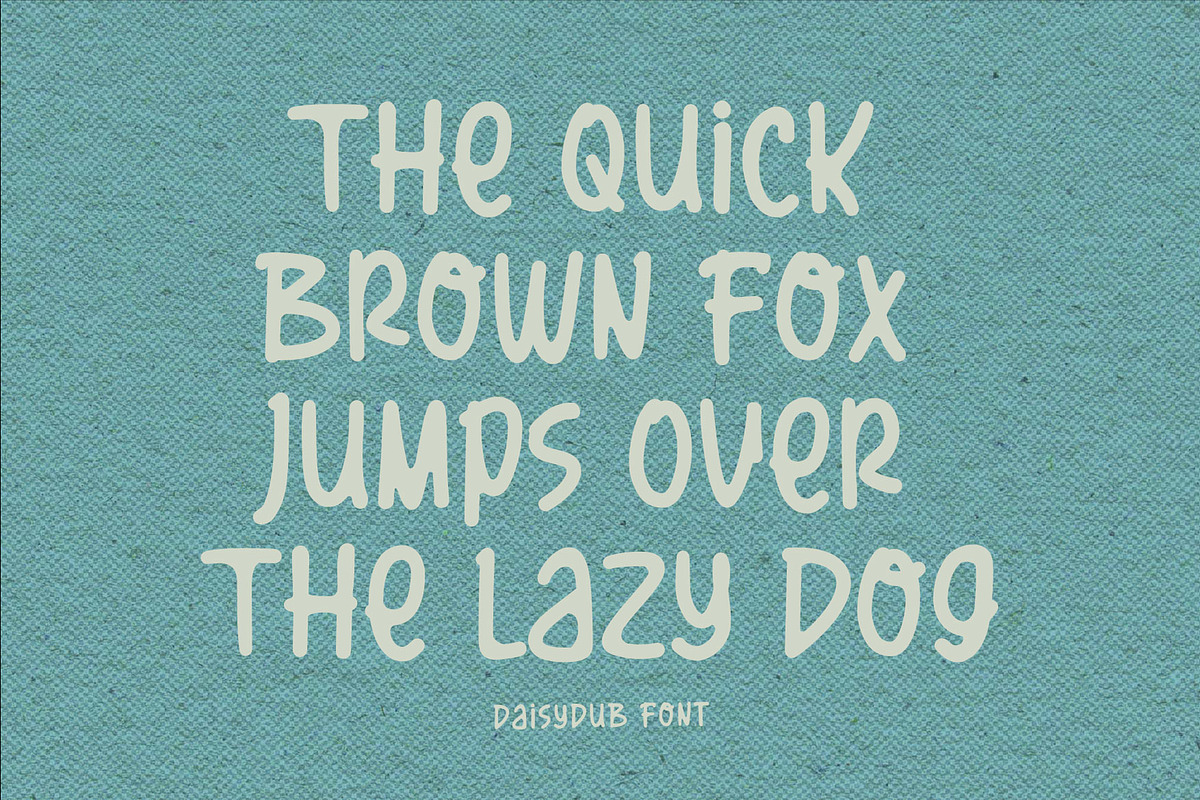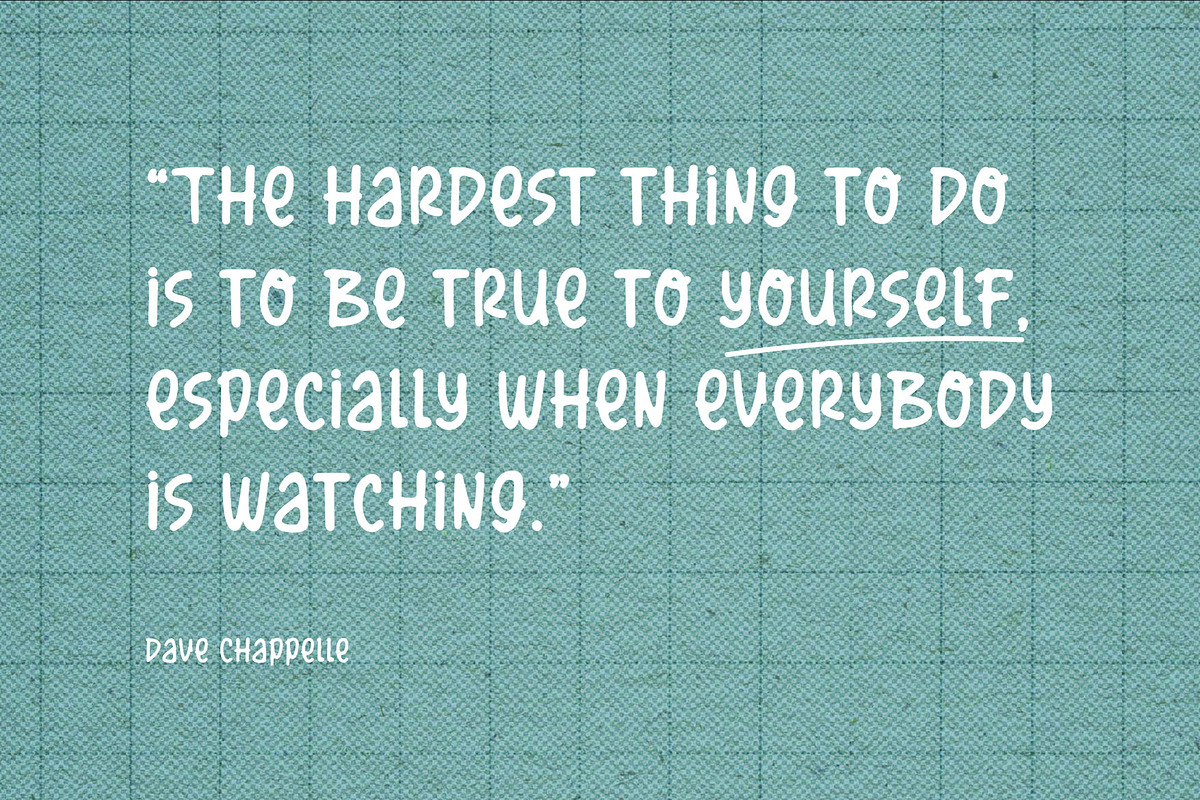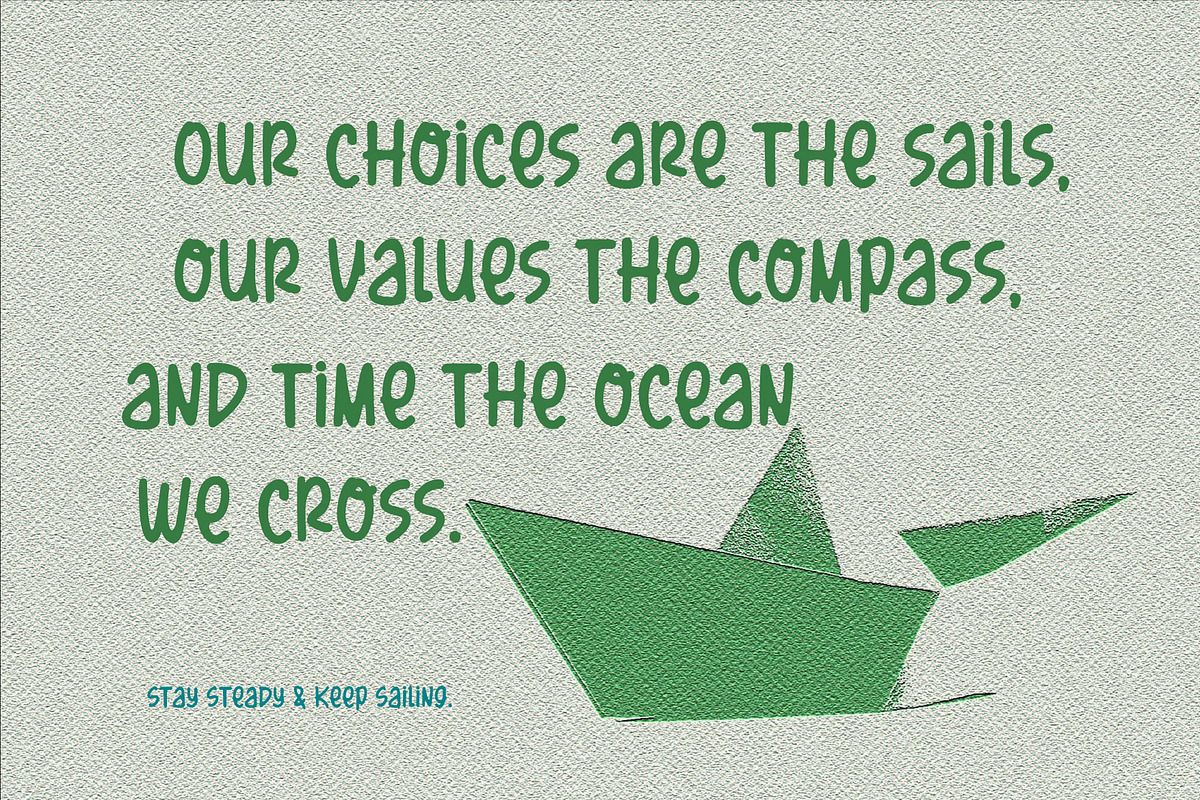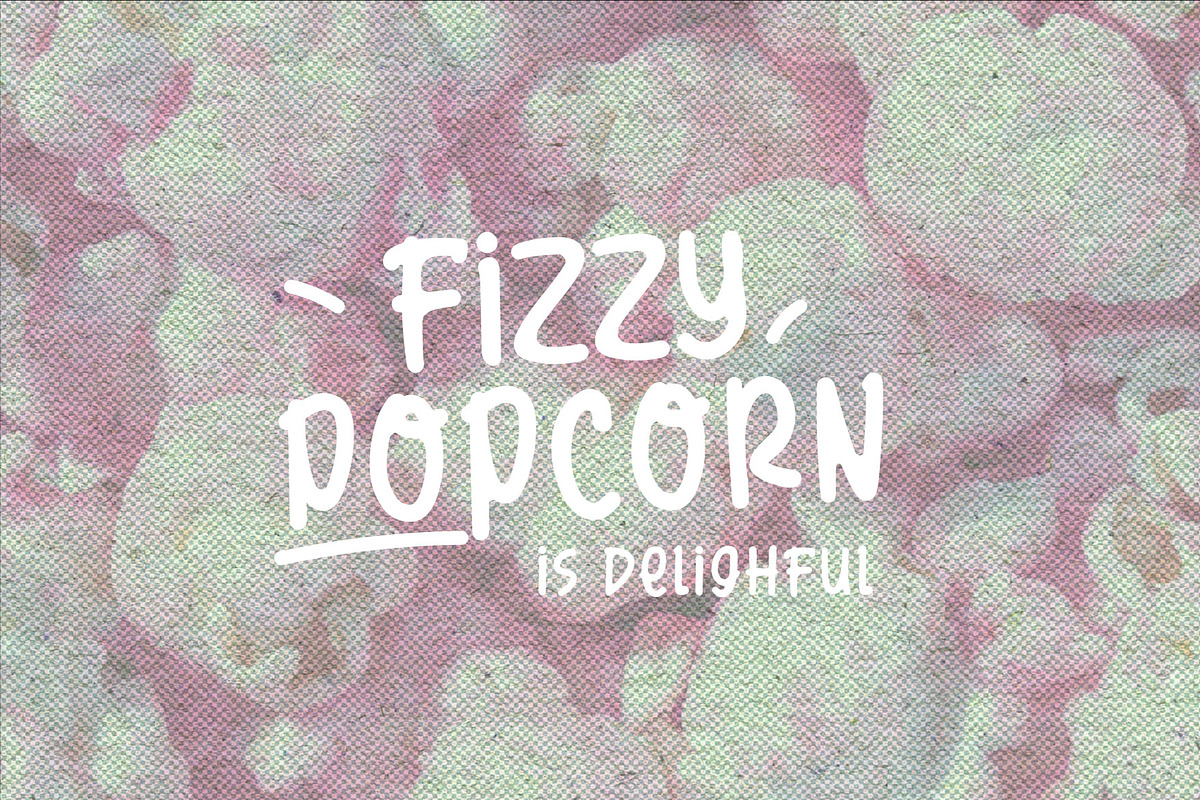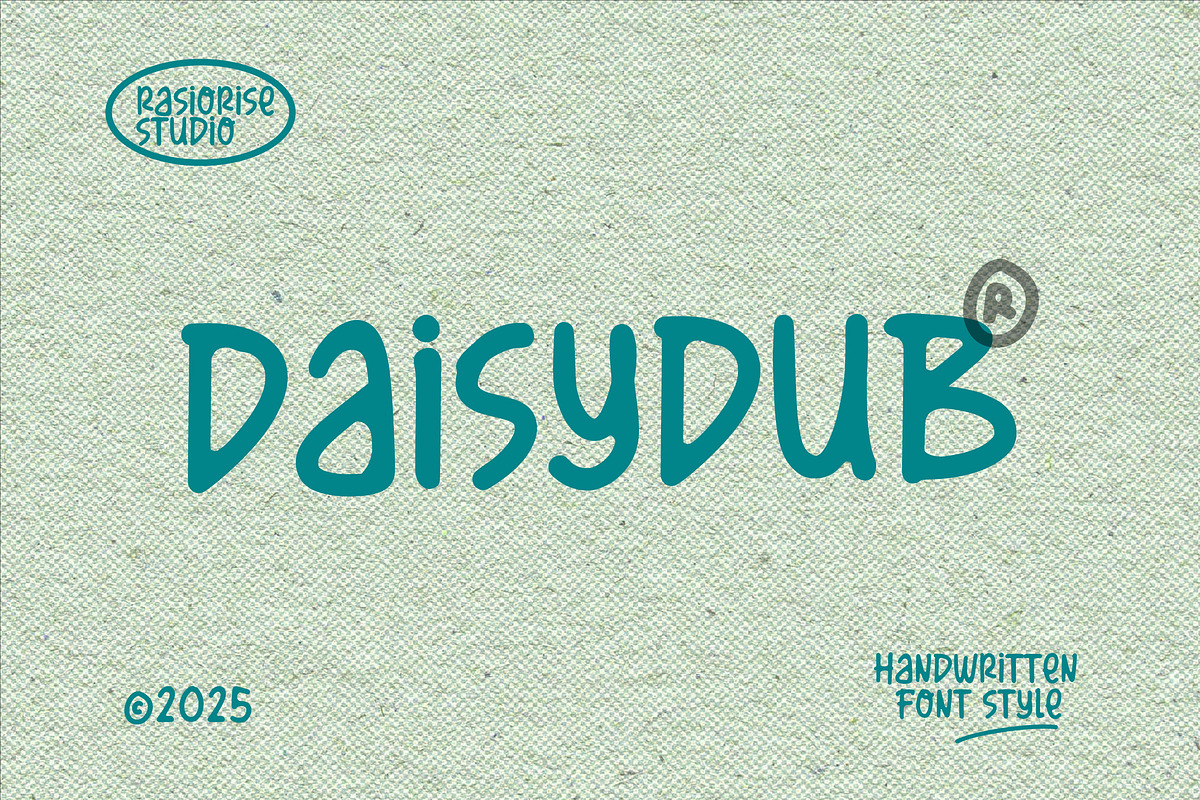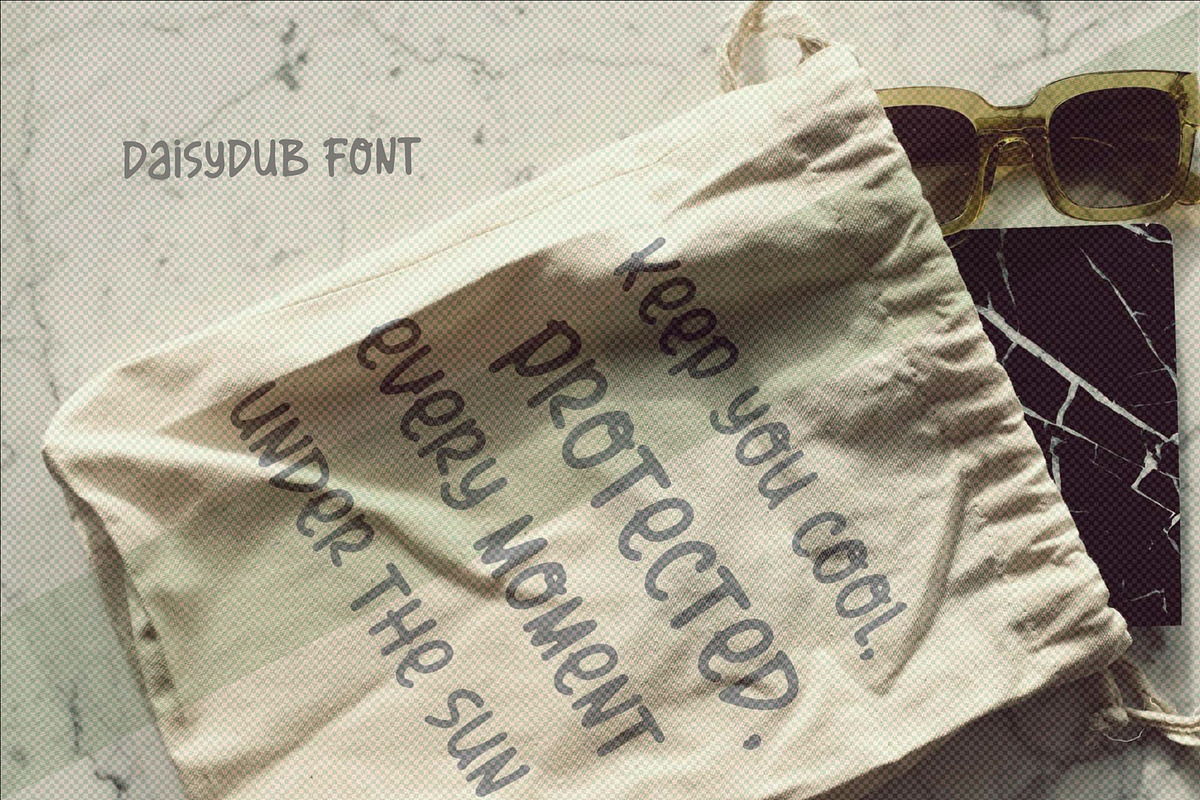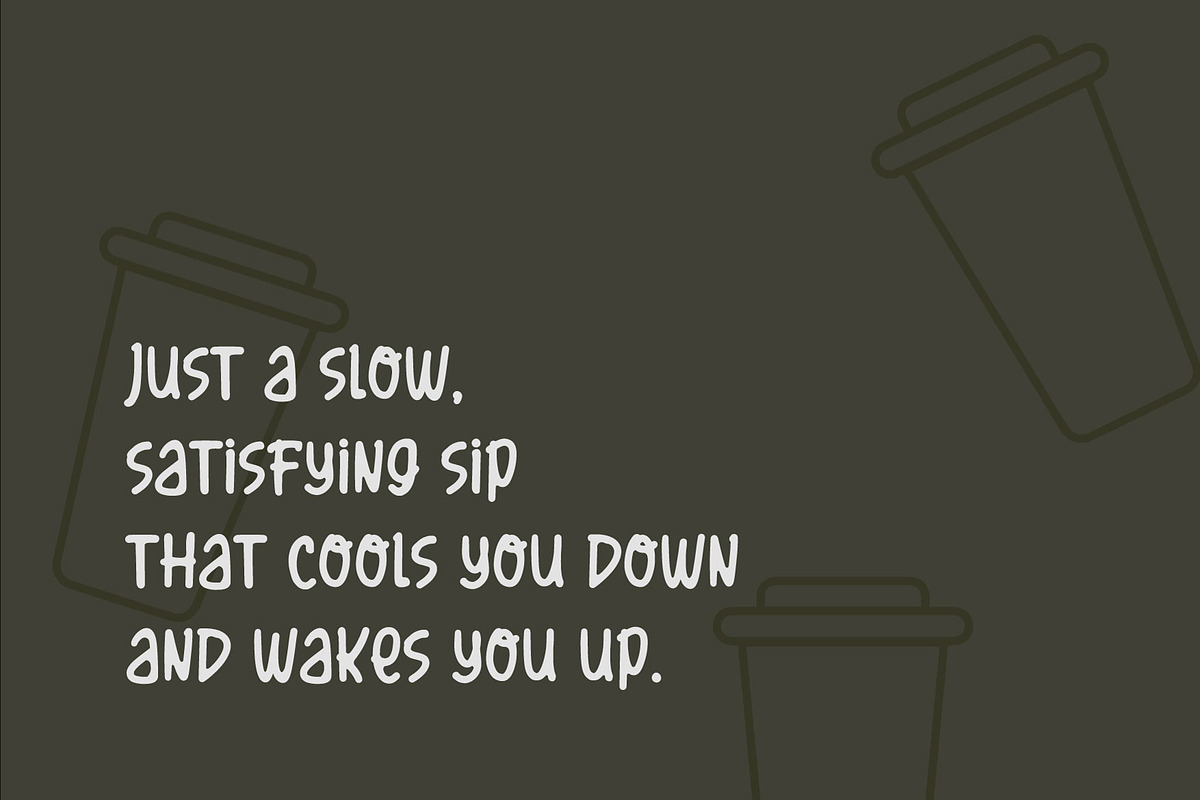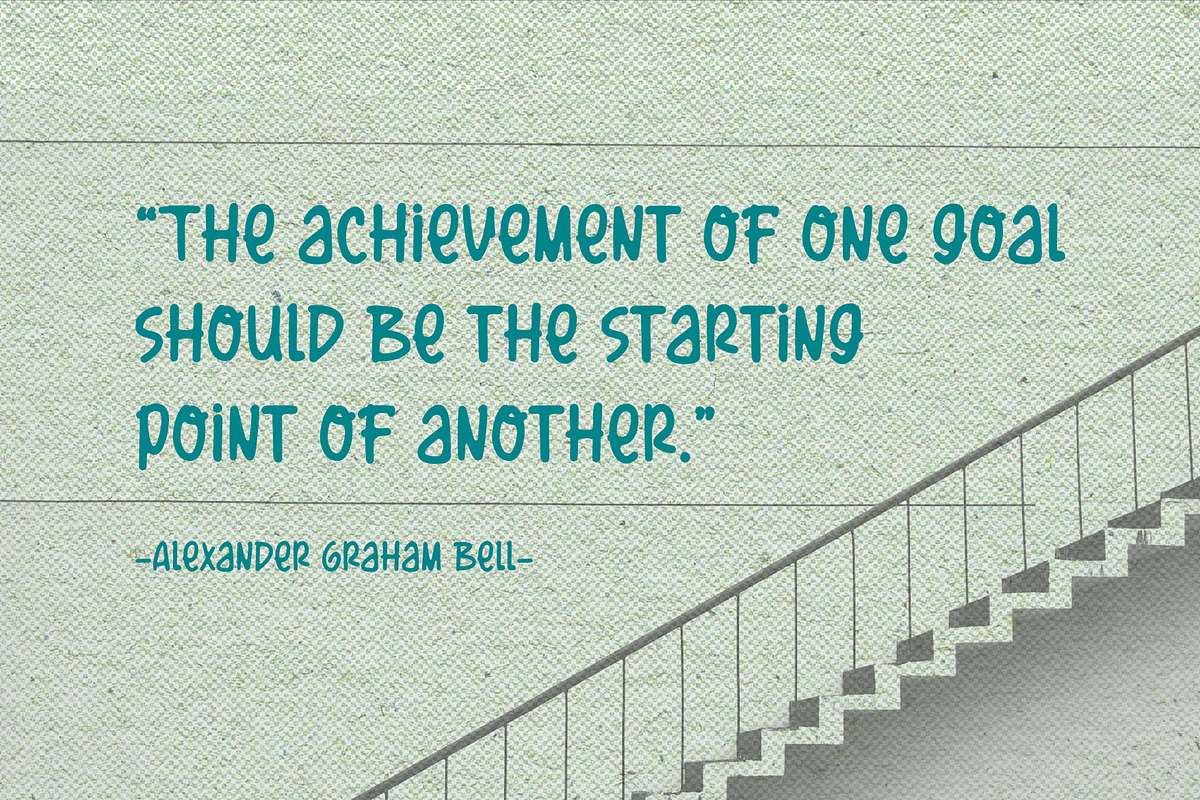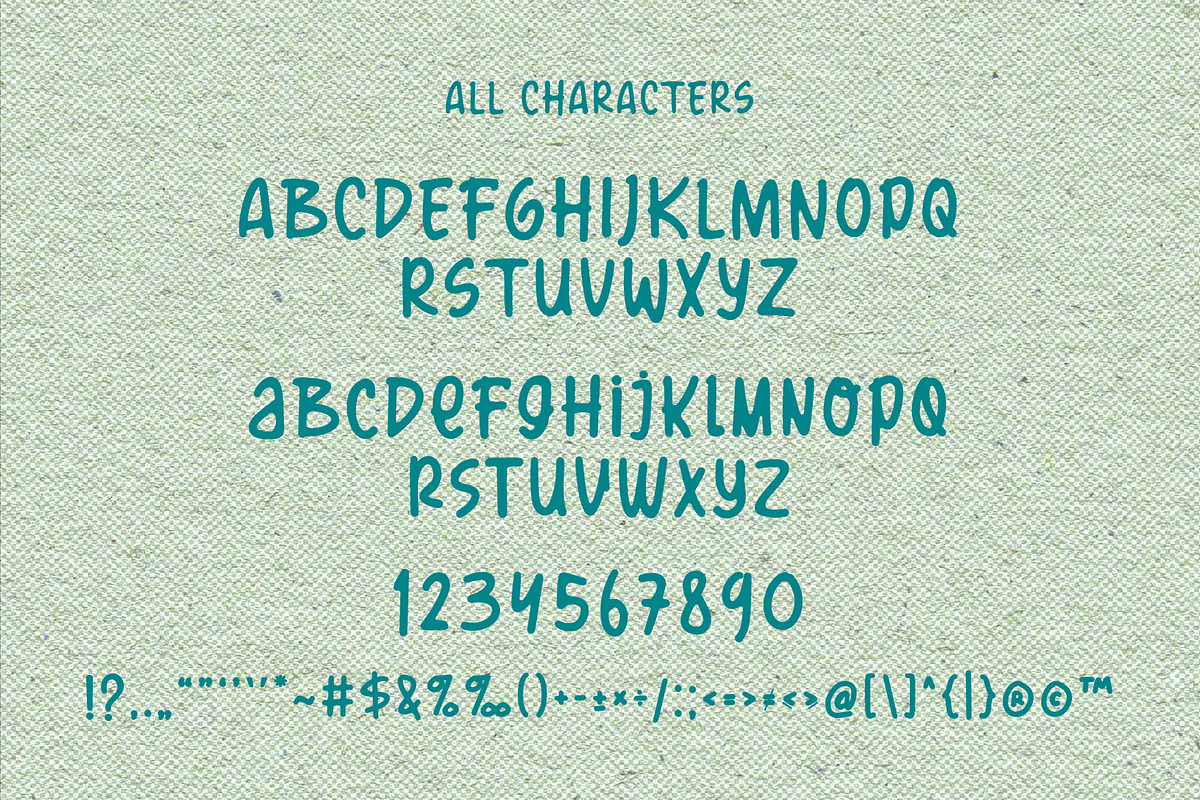
Daisydub a Handwritten Font
Daisydub font has been released for those of you who are looking for a handwritten unique typeface that a playful, smooth and casual strokes appearance, it delivers strong legibility with a professional edge. With easy-to-read character font for your project, also you can easily create a great and stand-out for logo, invitations, labels, magazines, books, greeting cards, wedding cards, packaging, fashion, makeup, novels and stationery.